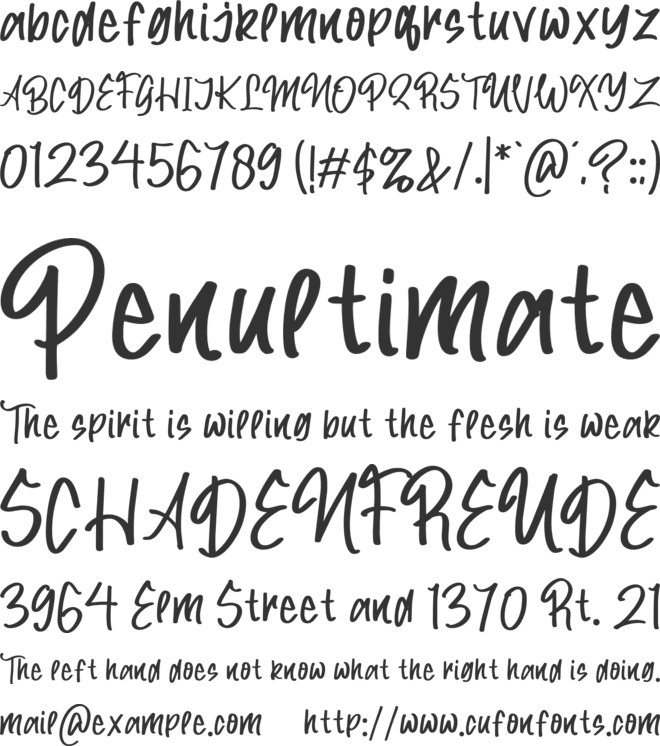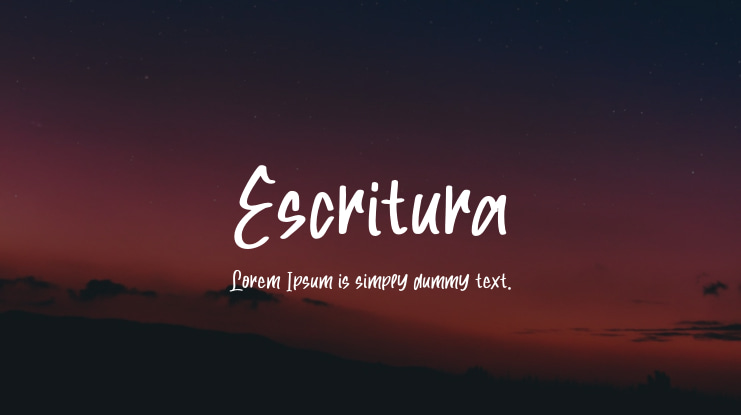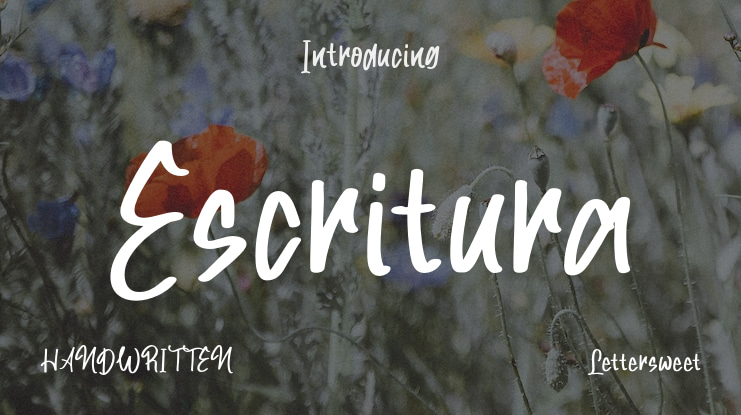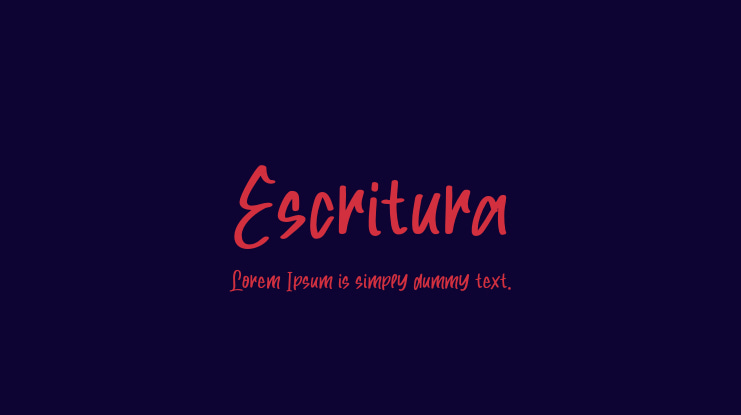
Escritura Font
Indulge in the effortlessly elegant appeal of Escritura, a hand-drawn font designed to exude natural character and charm. With its alluring aesthetics, Escritura makes an ideal choice for designs intended to evoke a sense of organic simplicity and authentic beauty. Brace yourself for the captivating allure of Escritura, unlocking a world where design meets natural artistry.